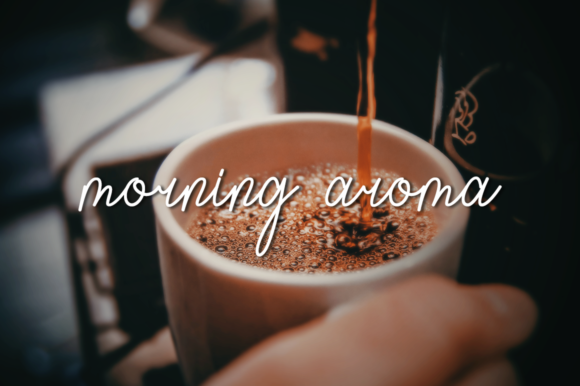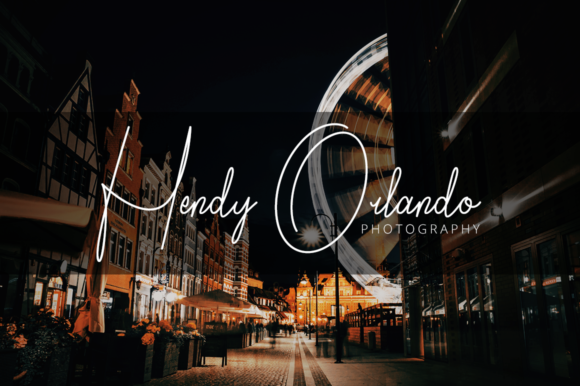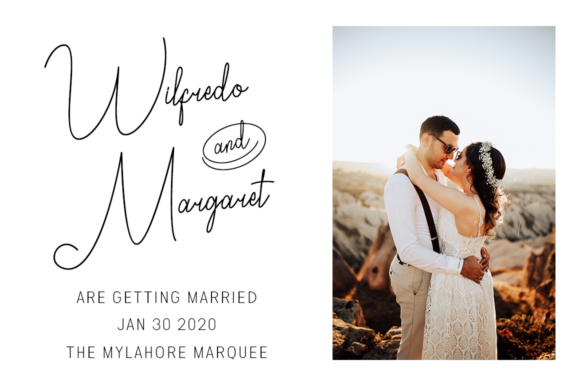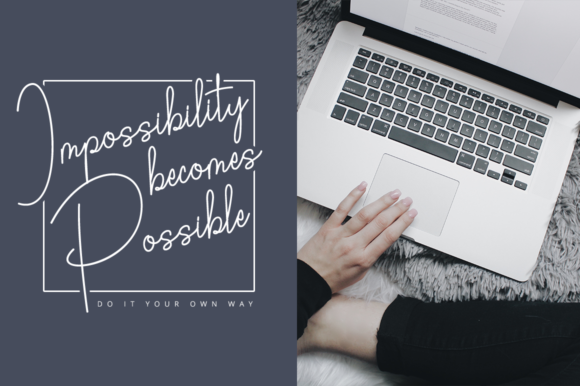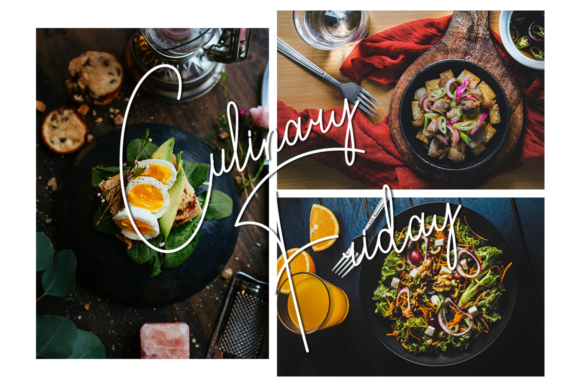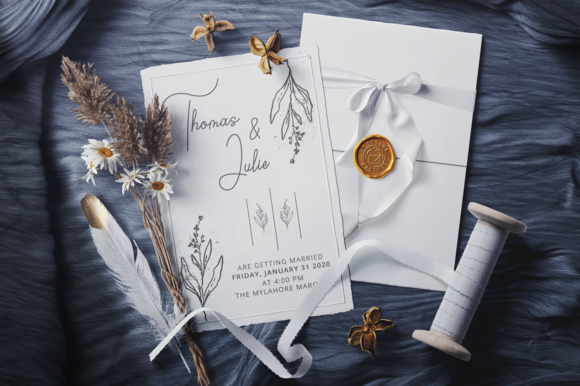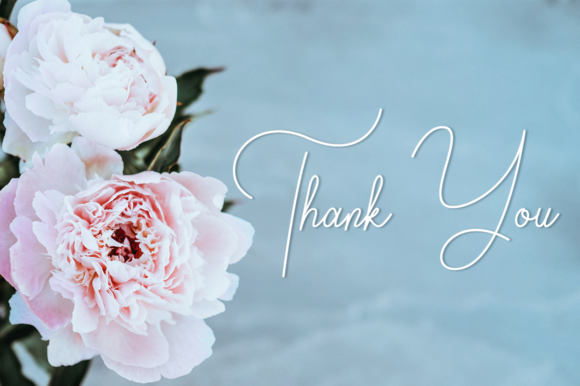
Bordershine Font
About Bordershine Font
Bordershine updates classic calligraphy with a simple and elegant twist. It’s the ideal script for adding a fancy feel to all of your arts & crafts projects!